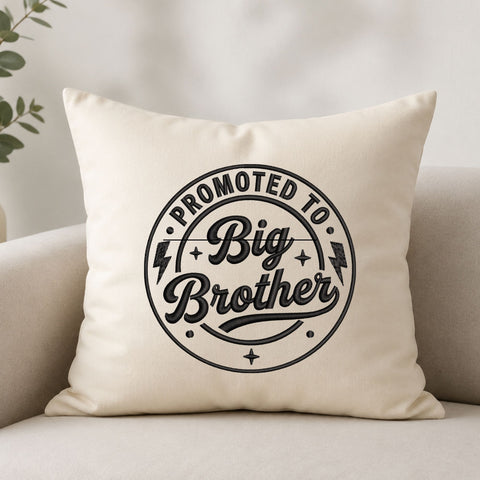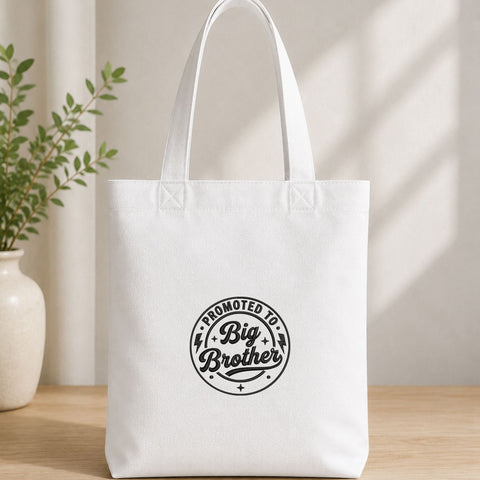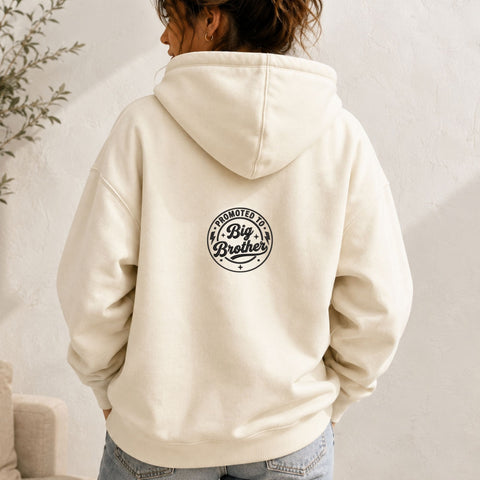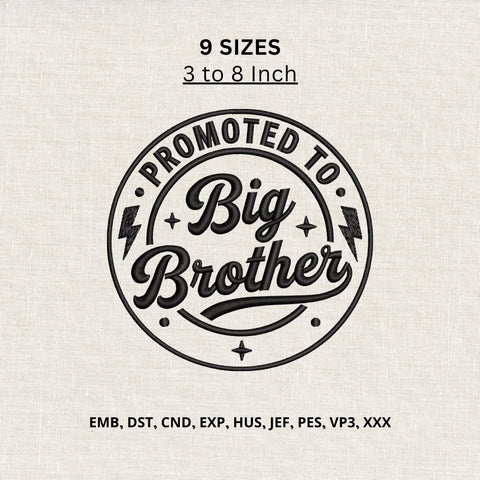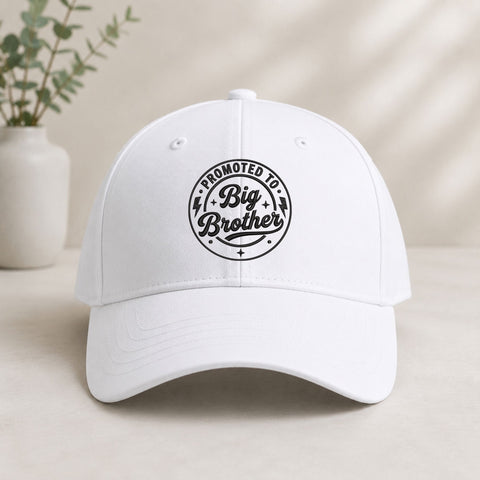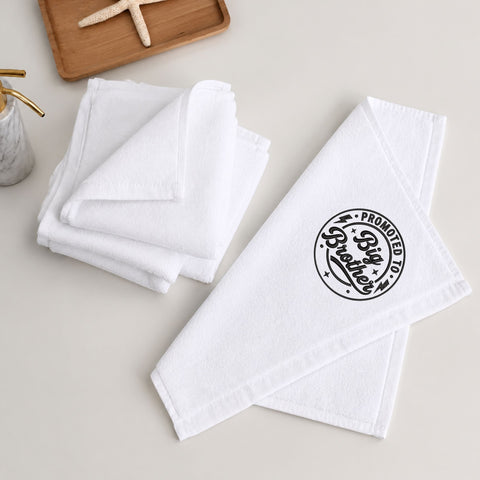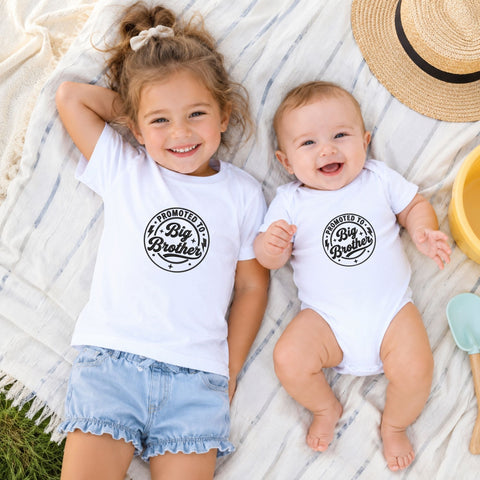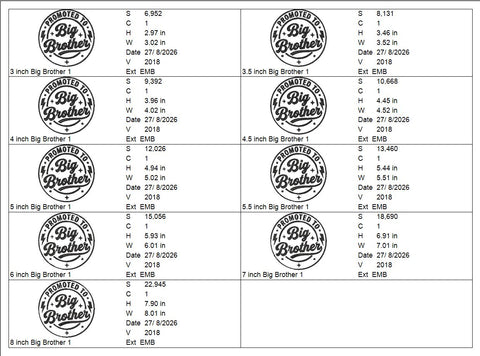
Promoted to Big Brother Machine Embroidery Design – Big Brother Announcement Embroidery File
Celebrate an exciting new family announcement with this Promoted to Big Brother Machine Embroidery Design. Featuring a bold circular badge layout, stylish “Big Brother” script lettering, lightning bolt accents, stars, and a clean monochrome look, this design is perfect for creating a memorable sibling pregnancy reveal.